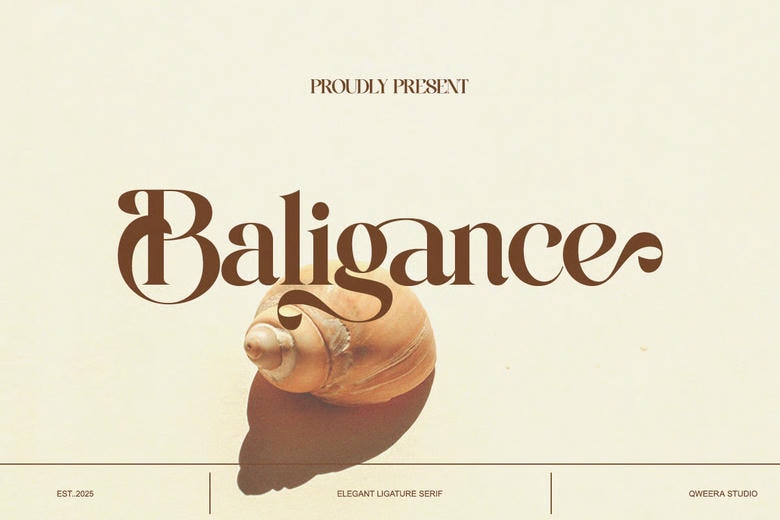
Baligance Font
Baligance is an elegant serif font made for luxury branding, coastal themes, boutique logos, editorial layouts, and premium packaging. Its graceful serifs, rounded contrasts, and unique ligatures.
This font combines classic elegance with expressive charm. It works well for resort branding, beauty labels, organic packaging, lifestyle editorials, wedding stationery, social media.
Baligance Serif Font